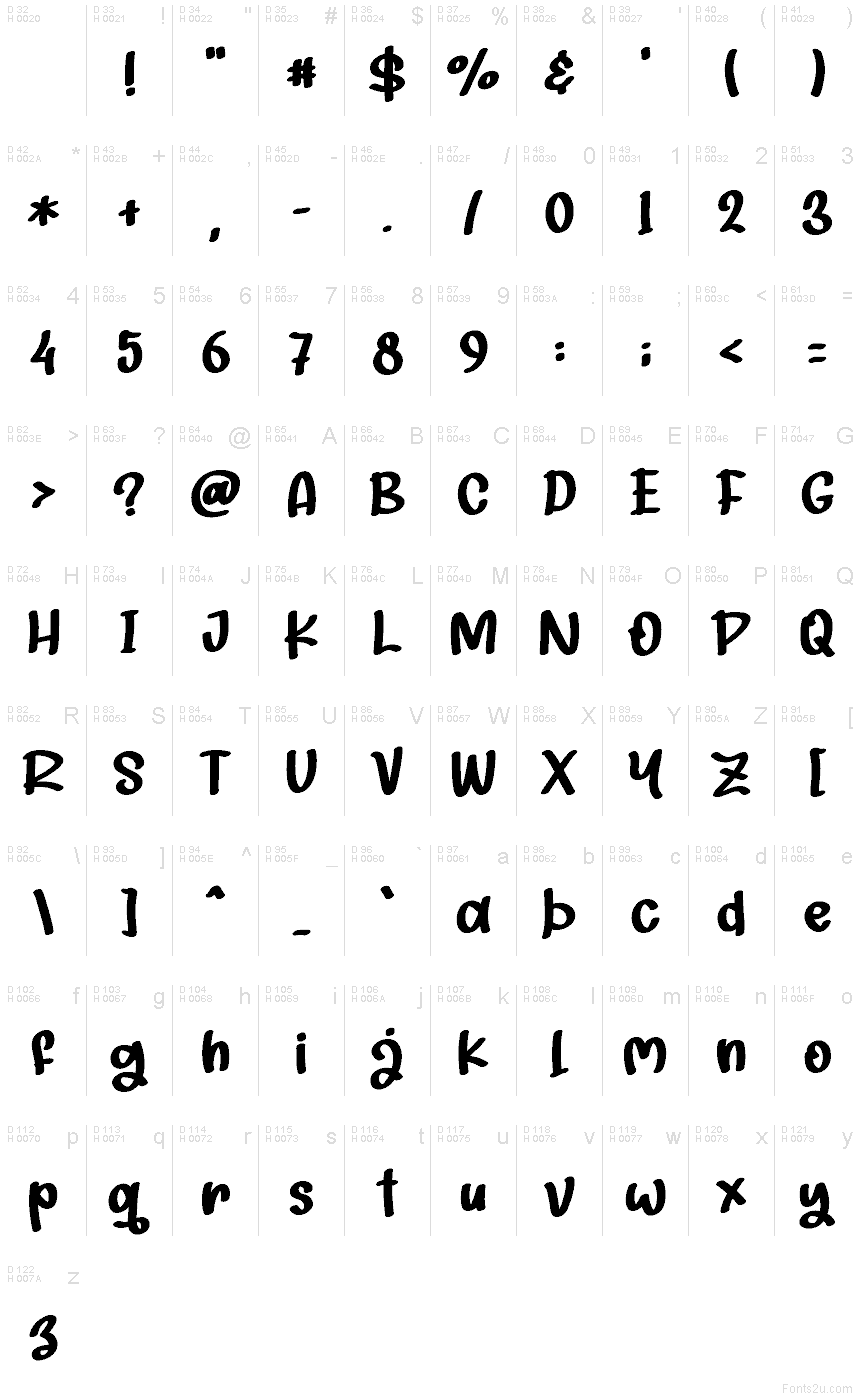
Playful Yellow - Personal Use
Playful Yellow font by Letterafa Studio is a free handwritten typeface that feels like it was painted in thick, inky strokes. The letters bounce with an easy, loose rhythm, as if they were scribbled on a notebook margin between doodles. Rounded corners and slightly uneven shapes give it a friendly, approachable warmth that reads clearly even at smaller sizes while still feeling bold and lively up close.
Using Playful Yellow, you can give kids’ book covers, classroom posters, party invitations, social media graphics, product packaging, and playful logos a bright, hand-drawn charm. This free font shines when you let it breathe in larger titles, then pair it with a simple sans serif for body text to keep everything readable and balanced.